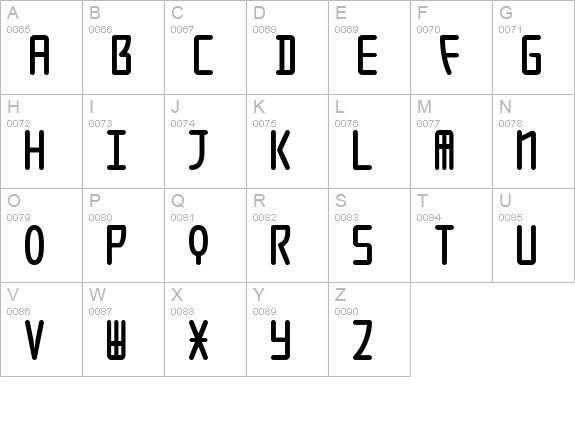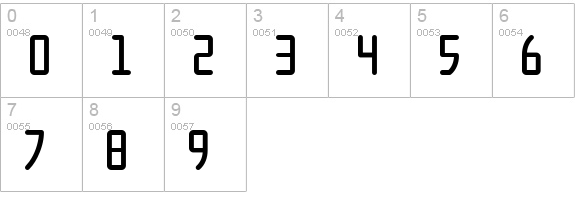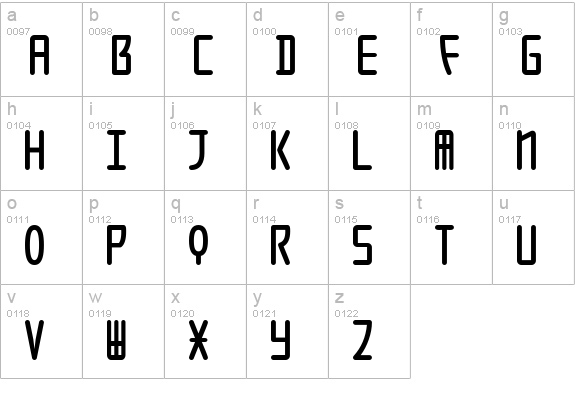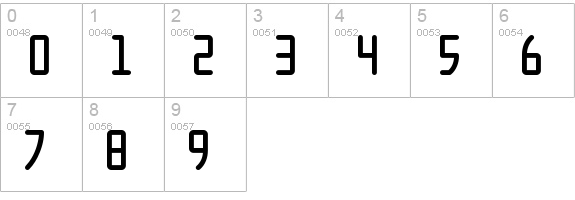
SeoulCaps Font Details
Introducing SeoulCaps, a modern and stylish display font that exudes elegance and sophistication. With its sleek lines and sharp edges, SeoulCaps is perfect for creating eye-catching headlines, logos, and branding materials. This versatile font is bound to elevate any design project to the next level. What's even better is that SeoulCaps is available for free download at FontsMarket.com. Yes, you read that right - this premium font can be yours at no cost! Don't miss out on the opportunity to add SeoulCaps to your font collection and unleash your creativity with this stunning typeface. Download SeoulCaps today and make your designs stand out from the crowd.